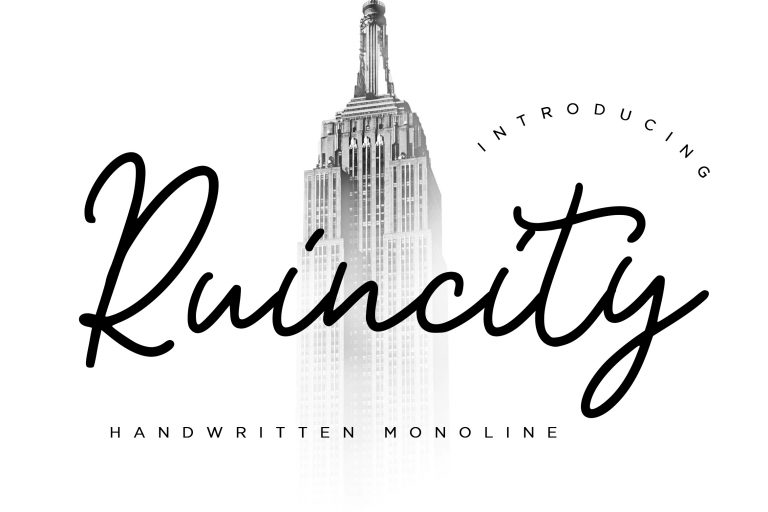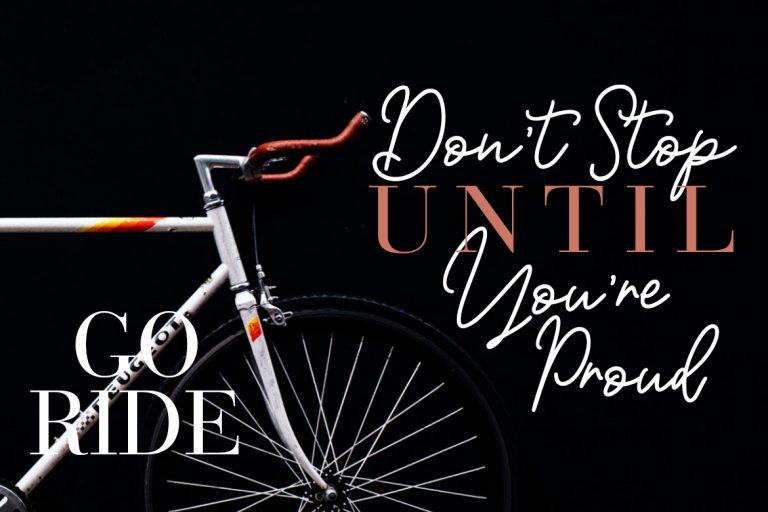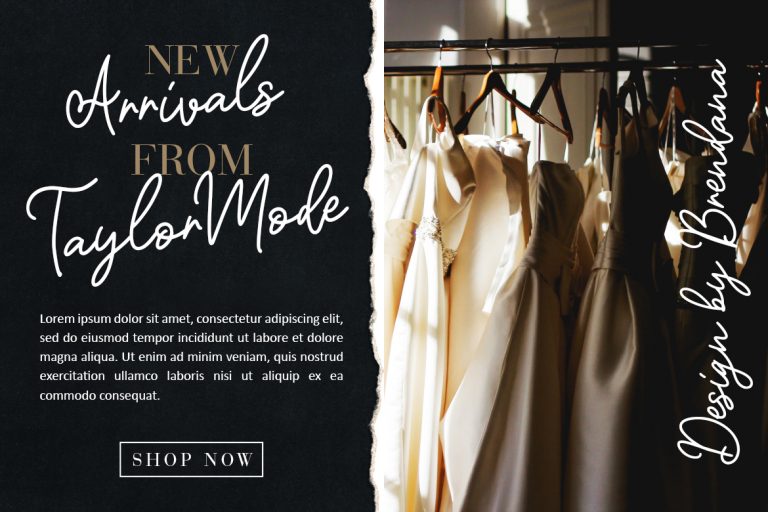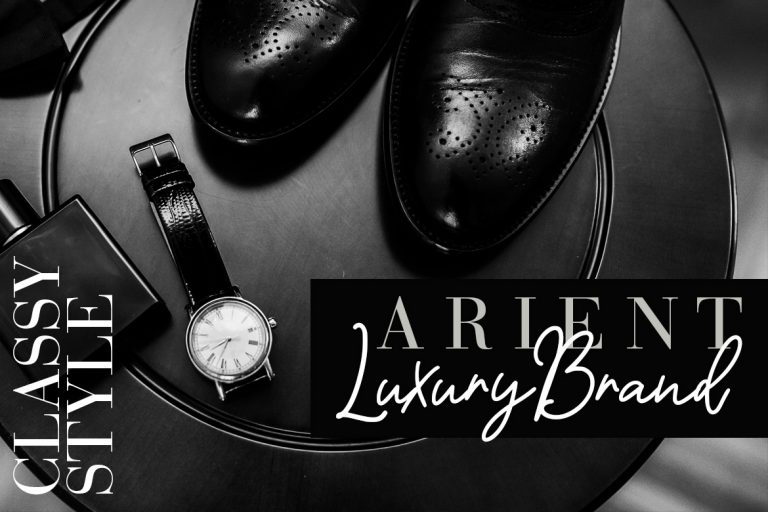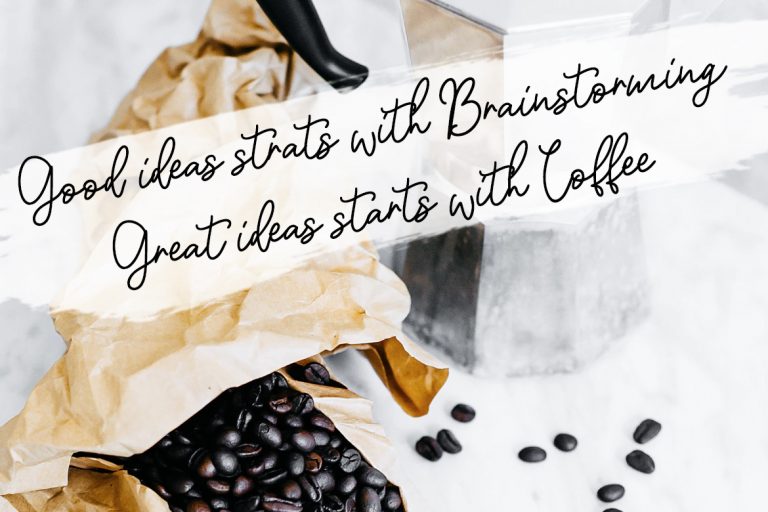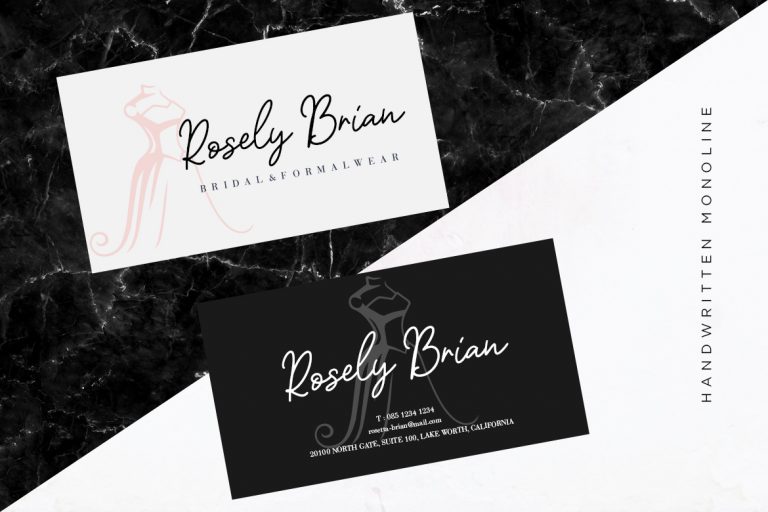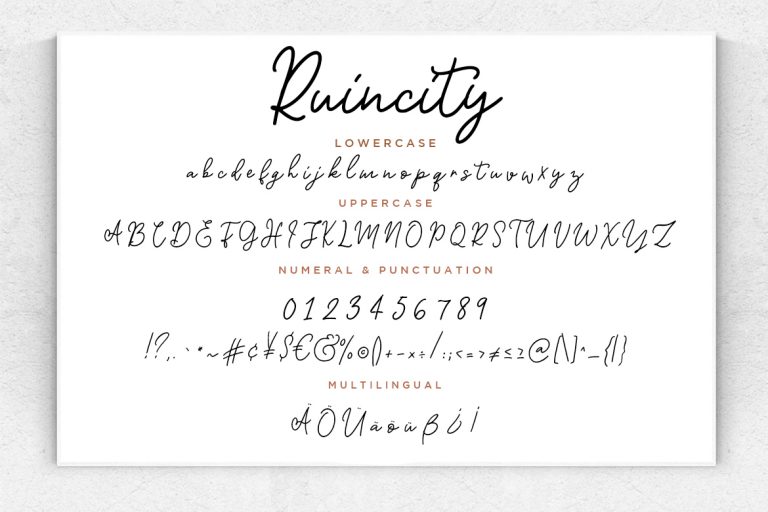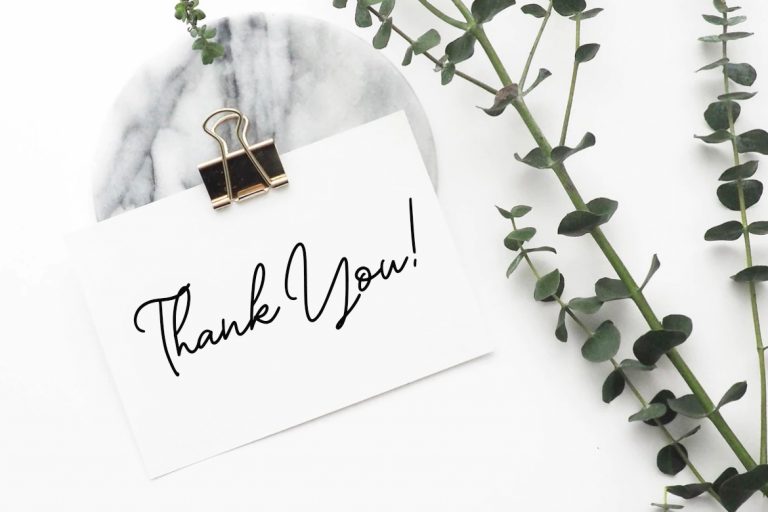
Ruincity is awesome monoline handwritten with natural movement for perfect your latest project.
Ruincity is perfect for branding projects, logo, wedding designs, social media posts, advertisements, product packaging, product designs, label, photography, watermark, invitation, stationery and any projects that need handwriting taste.
• Fonts include multilingual support for; ä ö ü Ä Ö Ü ß ¿ ¡
Ruincity Handwritten Monoline